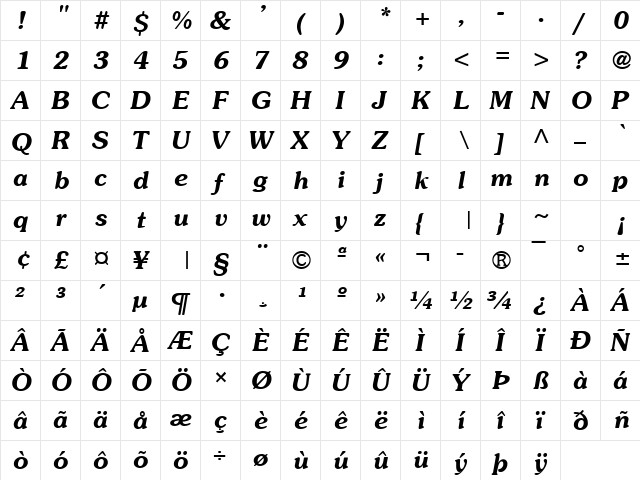
Sojourn Normal
Design Context for Sojourn Typeface
Sojourn is a composed and adaptable typeface that performs quietly and consistently across a wide range of design contexts.